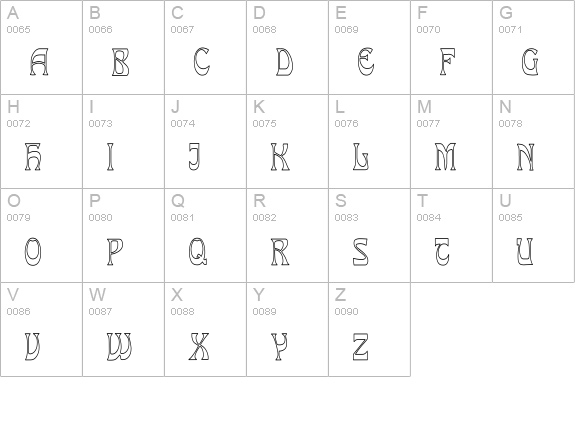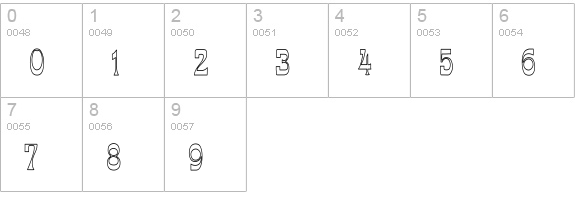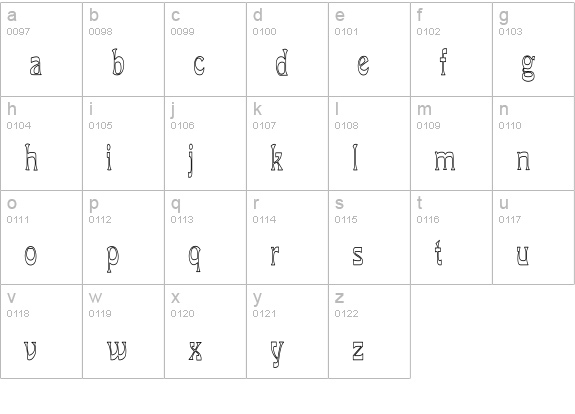
PCMiraHC Font Details
Introducing PCMiraHC, a versatile and stunning font that will add a touch of elegance and sophistication to your designs. With its sleek and modern look, PCMiraHC is perfect for a wide range of projects, from logos and branding to invitations and posters. This font features a unique combination of bold and thin strokes, creating a harmonious balance that is both eye-catching and easy to read. The clean lines and smooth curves of PCMiraHC give it a contemporary and polished feel, making it the ideal choice for those looking to make a bold statement. But what truly sets PCMiraHC apart is that it is completely free! Yes, you read that right. This incredible font is freely available to download at FontsMarket.com. We believe that great design should be accessible to everyone, and that's why we are thrilled to offer PCMiraHC as a free resource. Whether you're a professional designer or a DIY enthusiast, PCMiraHC is a must-have font in your collection. Its versatility and beauty will inspire endless creativity and elevate your designs to new heights. So don't miss out on this amazing opportunity to enhance your projects with PCMiraHC. Download it for free today at FontsMarket.com and let your imagination soar.